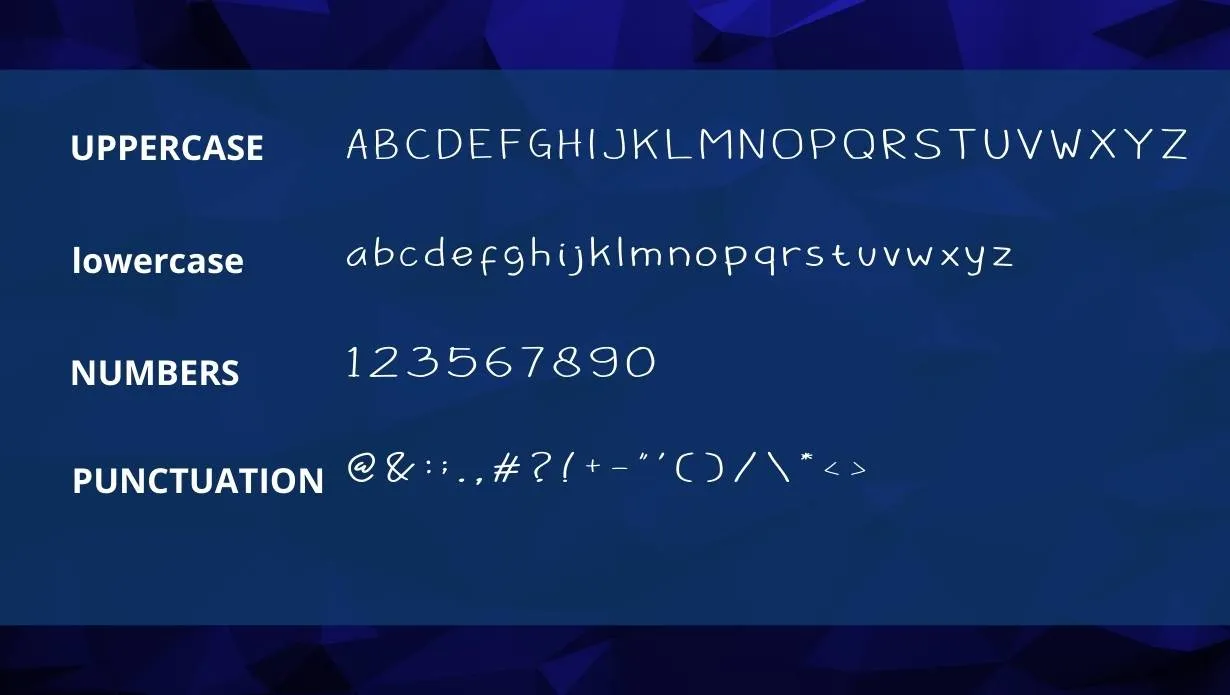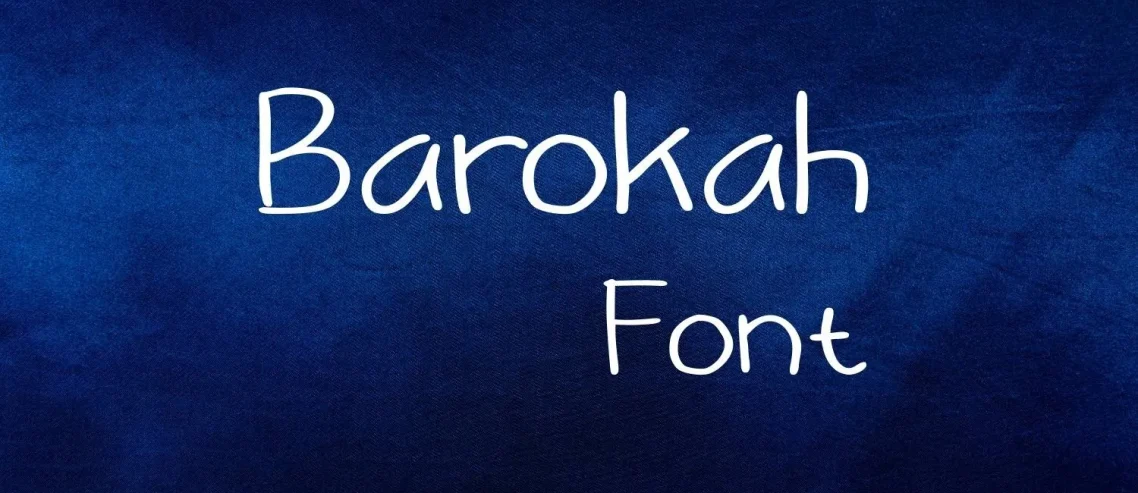
Barokah Font is a typeface created by Indonesian graphic designer Muhammad Panji. The font was inspired by the Javanese script of the Mangkunegaran Palace in Solo, Indonesia. Barokah Typeface was created with the help of Google’s Noto Fonts project.
The typeface all weight includes Opentype features and Truetype features, it has a pairing personality with Cinamon Font. This font is also commonly used in Word and any other editing application to make interesting designs.
Barokah Font Info
| Name | Barokah Font |
| Designer | Muhammad Panji |
| Style | Handwritten |